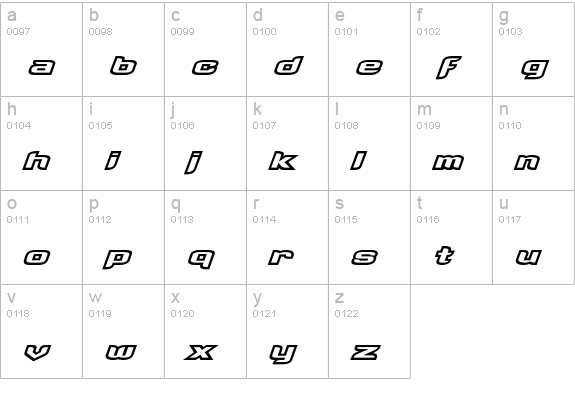
Megahertz-OutItalic Font Details
Introducing Megahertz-OutItalic font, a striking and dynamic typeface that exudes a sense of energy and modernity. Its sleek and futuristic design is sure to make a bold statement in any project. The italic style adds a touch of sophistication and flair, making it perfect for headlines, titles, and branding materials. What sets Megahertz-OutItalic font apart is not just its unique look, but also the fact that it is available for free download at FontsMarket.com. This means you can easily access this cutting-edge font and use it in your designs without any cost. Whether you're working on a website, poster, logo, or any other creative project, Megahertz-OutItalic font will elevate your design and captivate your audience. Download it now for free and unleash the power of this modern and stylish typeface.